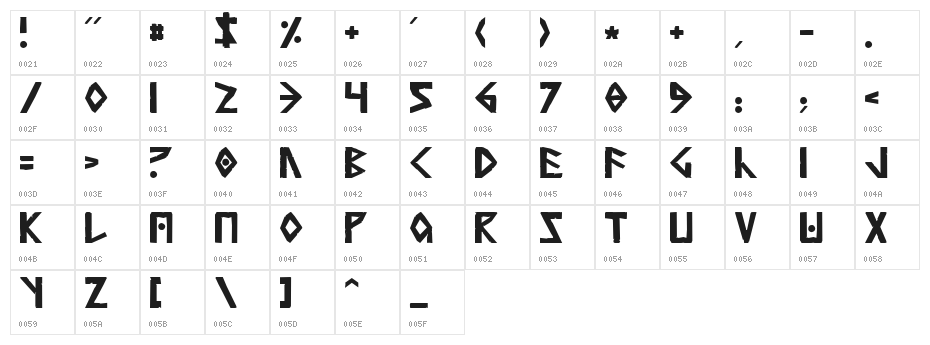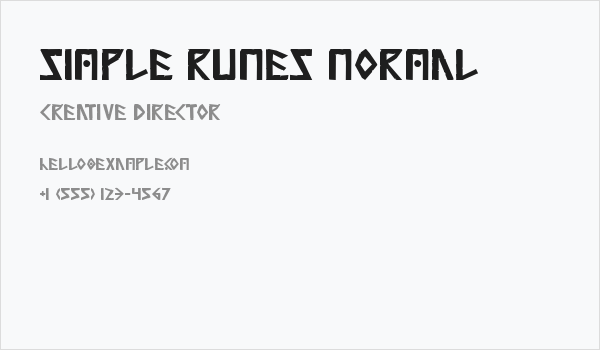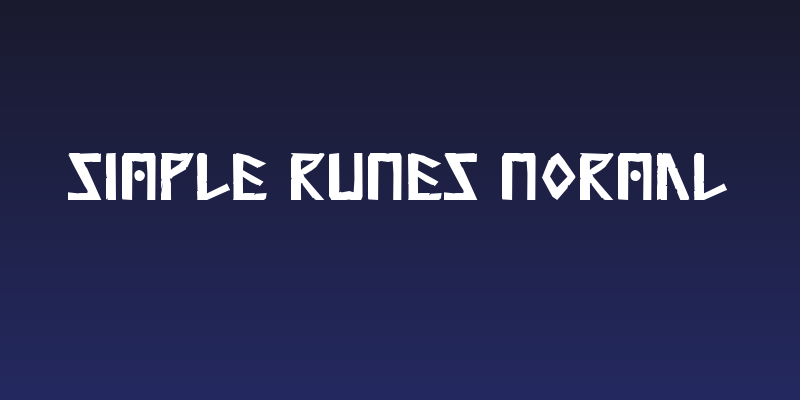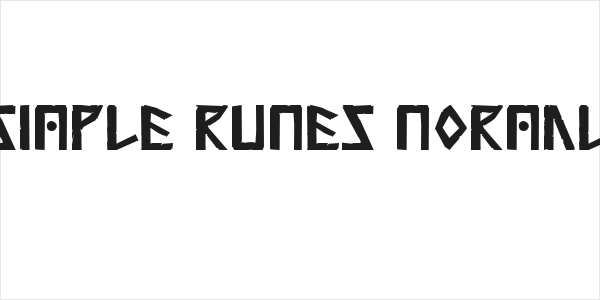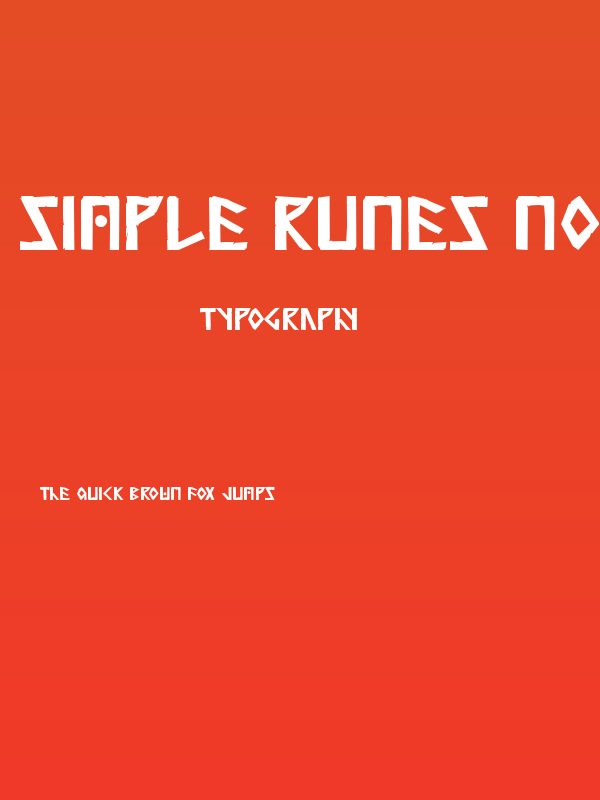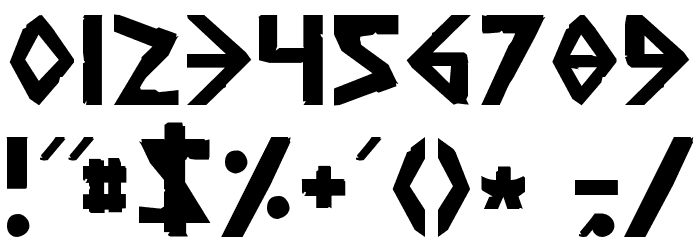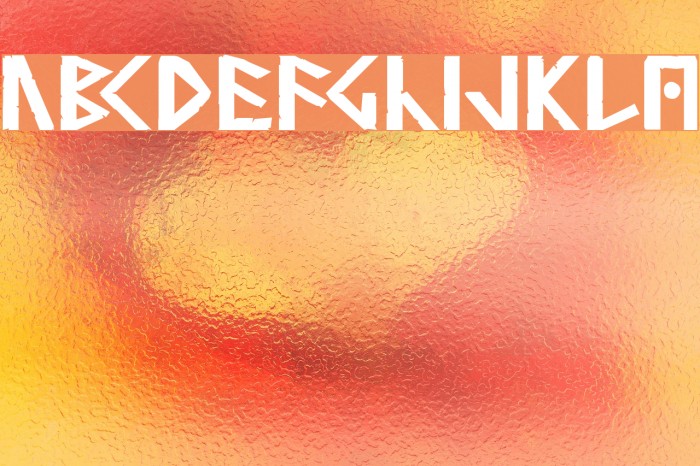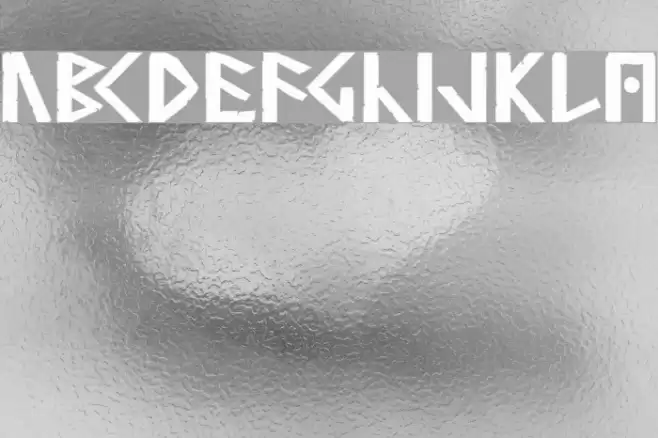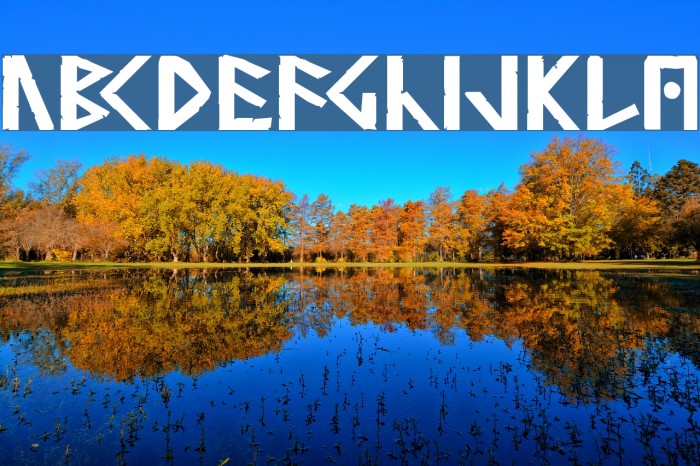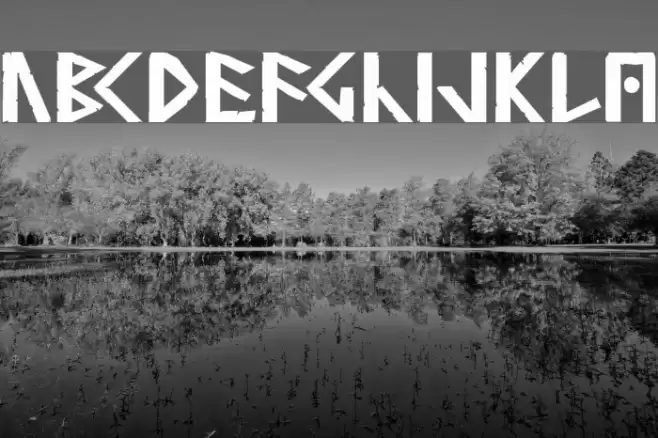
Simple Runes Normal Font
| 用途 | Headlines, Logos, Themed Designs |
| おすすめプロジェクト | Ideal for fantasy-themed designs, game titles, movie posters, and historical displays. |